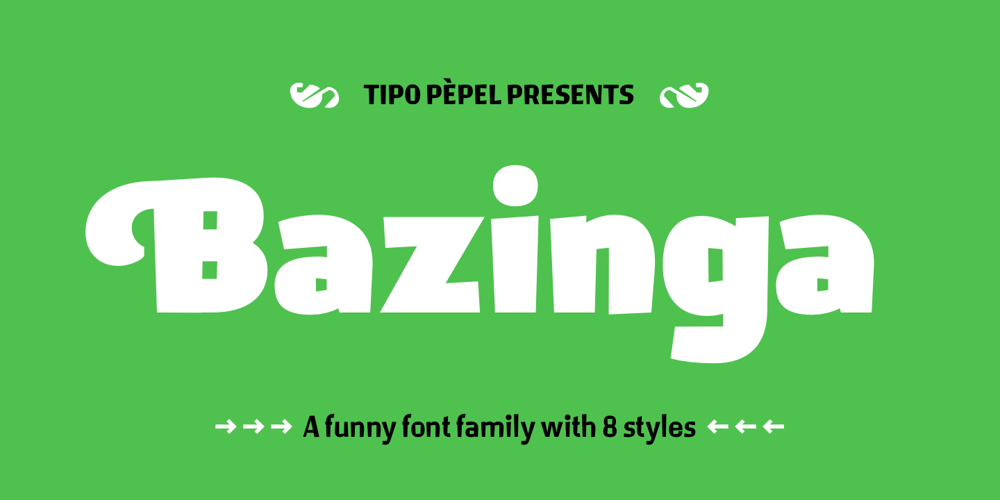
Bazinga Font Family was designed by Josep Patau Bellart and published by Tipo Pèpel. Bazinga contains 8 styles and family package options. Bazinga is a fun and uncomplicated typeface, thanks to the rectilinear counterforms that accompany it, it is ideal to use in our most cheerful works, where fun, humor or childish naivety, is the essence of what is to be transmitted. It also has a set of decorative initials to personalize our beloved words, and a set of dingbats to decorate our works.